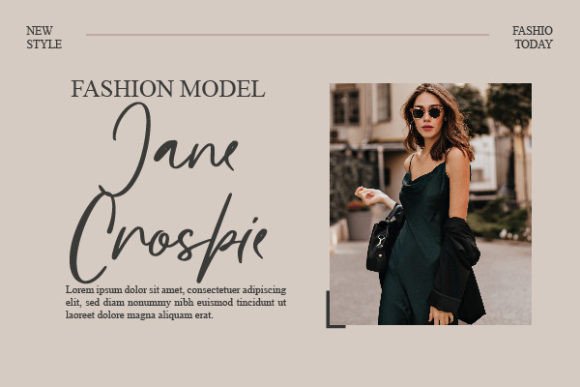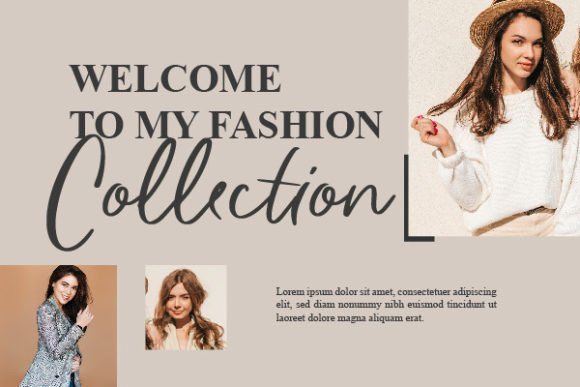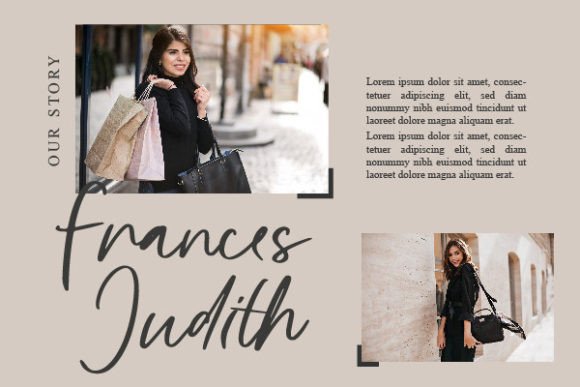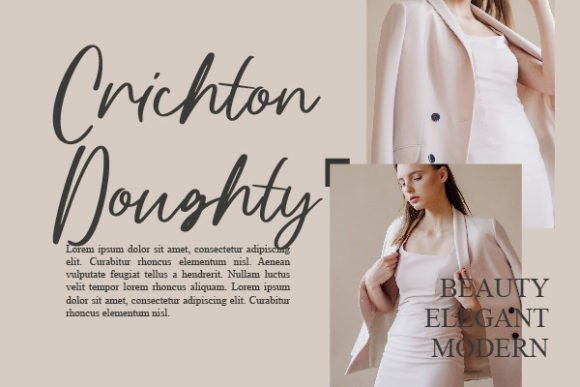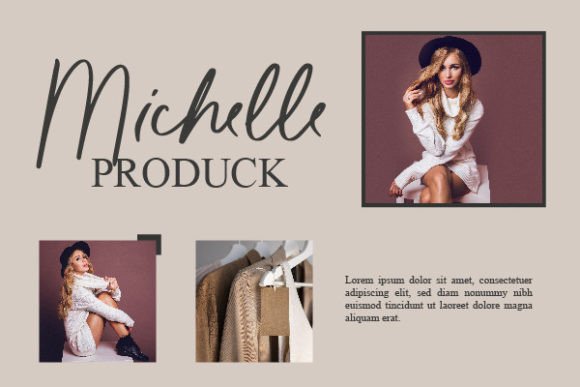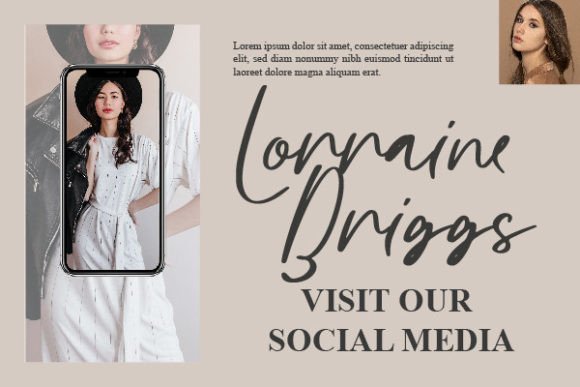
Introducing Carolyn Angela Font: Elevate Your Designs with Elegance
Carolyn Angela is an incredibly stylish handwritten script font that has been masterfully designed to become a true favorite among designers and crafters. With its unique and elegant style, this font has the potential to bring each of your creative ideas to the highest level. In this article, we’ll dive into the world of Carolyn Angela Font, exploring its features, benefits, and uses, as well as provide tips on how to make the most of this beautiful font.
The Story Behind Carolyn Angela Font
Carolyn Angela Font is a carefully crafted handwritten script font that exudes elegance and sophistication. Its creator has poured their heart and soul into designing a font that is not only visually stunning but also highly versatile. Whether you’re working on a branding project, crafting a beautiful wedding invitation, or creating a stunning social media graphic, Carolyn Angela Font is the perfect choice.
Key Features of Carolyn Angela Font
- Handwritten Script Style: Carolyn Angela Font boasts a beautiful handwritten script style that adds a touch of elegance and sophistication to any design.
- Highly Legible: Despite its elegant style, Carolyn Angela Font remains highly legible, making it perfect for use in a variety of design projects, from body text to headings.
- Versatile: This font is incredibly versatile, suitable for use in a wide range of design projects, including branding, advertising, packaging, and more.
Benefits of Using Carolyn Angela Font
So, why should you choose Carolyn Angela Font for your next design project? Here are just a few benefits of using this incredible font:
- Adds Elegance and Sophistication: Carolyn Angela Font adds a touch of elegance and sophistication to any design, making it perfect for high-end branding and advertising projects.
- Enhances Readability: The clear and legible style of Carolyn Angela Font ensures that your text is easy to read, even at smaller font sizes.
- Boosts Creativity: With its unique and stylish design, Carolyn Angela Font is sure to inspire your creativity and help you think outside the box.
Uses of Carolyn Angela Font
Carolyn Angela Font is an incredibly versatile font that can be used in a wide range of design projects, including:
- Branding and Logo Design: Use Carolyn Angela Font to create a stunning logo or brand identity that exudes elegance and sophistication.
- Wedding and Event Invitations: Add a touch of romance and elegance to your wedding or event invitations with Carolyn Angela Font.
- Social Media Graphics: Use Carolyn Angela Font to create stunning social media graphics that stand out from the crowd.
- Packaging Design: Add a touch of luxury and sophistication to your packaging design with Carolyn Angela Font.
Tips for Using Carolyn Angela Font
To get the most out of Carolyn Angela Font, here are a few tips to keep in mind:
- Experiment with Font Sizes: Don’t be afraid to experiment with different font sizes to find the perfect balance for your design.
- Pair with Other Fonts: Carolyn Angela Font pairs beautifully with other fonts, so don’t be afraid to get creative and try out different combinations.
- Use in Combination with Images: Use Carolyn Angela Font in combination with images to add an extra layer of depth and interest to your design.
In conclusion, Carolyn Angela Font is an incredibly stylish and versatile handwritten script font that is sure to become a true favorite among designers and crafters. With its elegant style, high legibility, and ease of use, this font is perfect for a wide range of design projects, from branding and advertising to packaging and social media graphics. Whether you’re looking to add a touch of elegance and sophistication to your design or simply want to take your creative ideas to the next level, Carolyn Angela Font is the perfect choice.